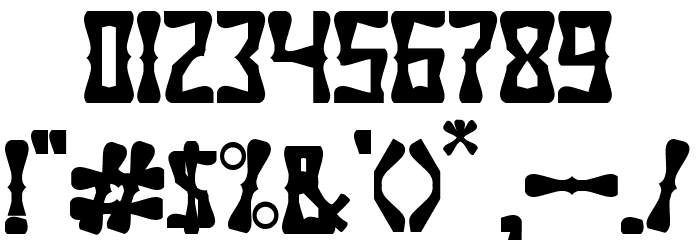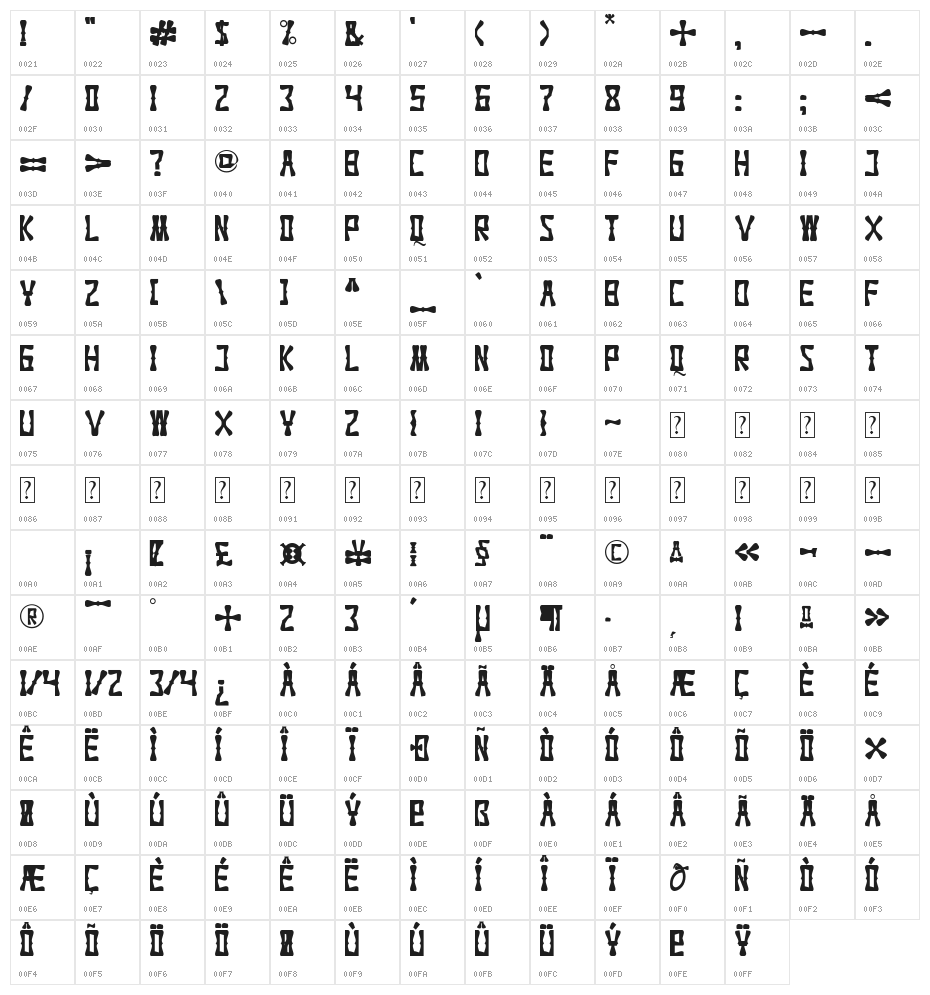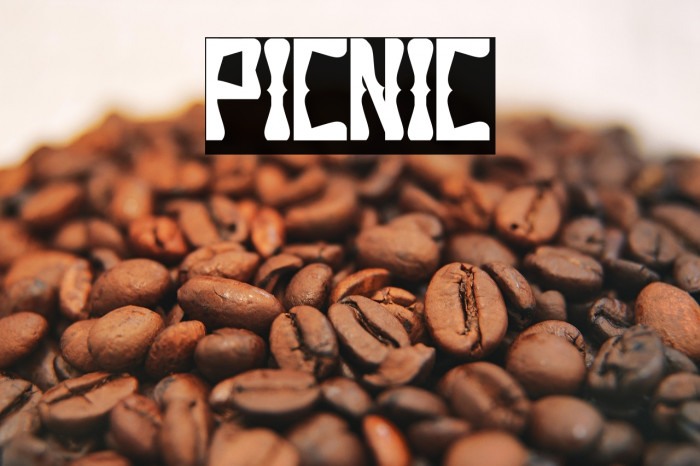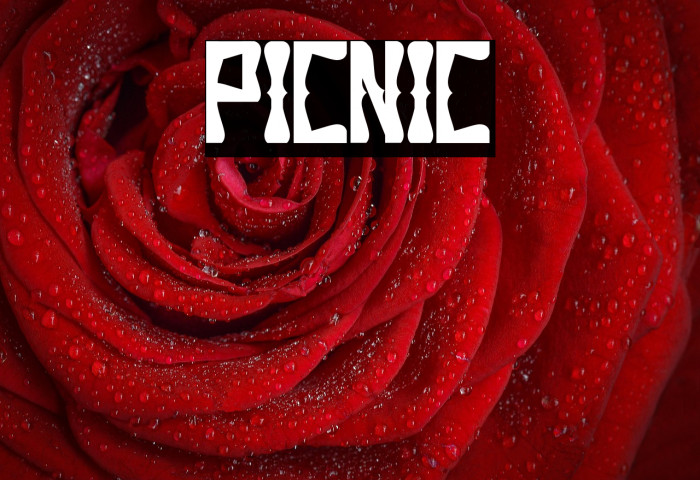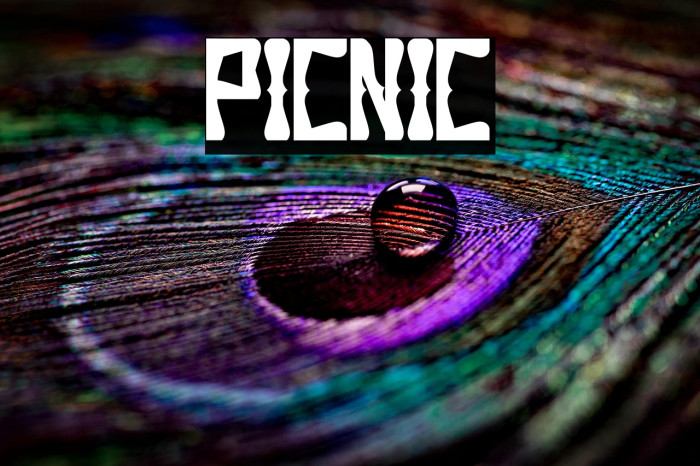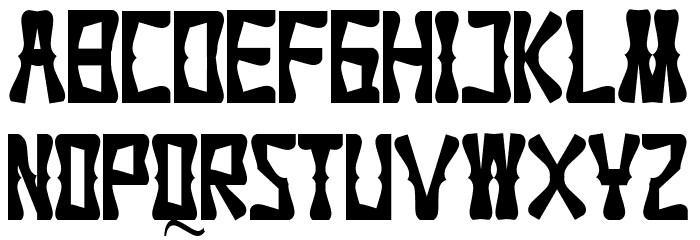
PICNIC Font
PICNIC Description
This font features a bold and playful design with a unique, chunky style that gives it a distinctive appearance. The characters are crafted with irregular, organic shapes that create a sense of movement and energy. The uppercase and lowercase letters maintain a consistent width, while the numbers and special characters follow the same playful aesthetic. The font's boldness and quirky design make it stand out, offering a creative and fun vibe. Its unique style is perfect for projects that require a touch of whimsy and creativity.